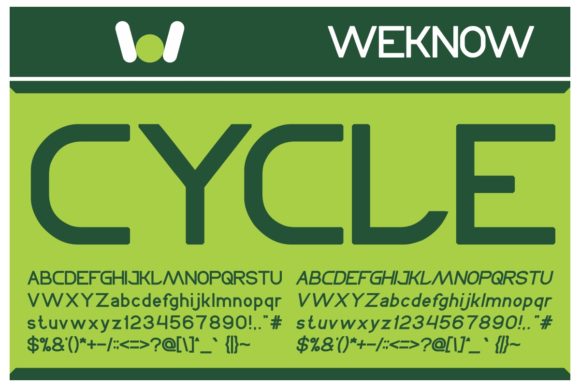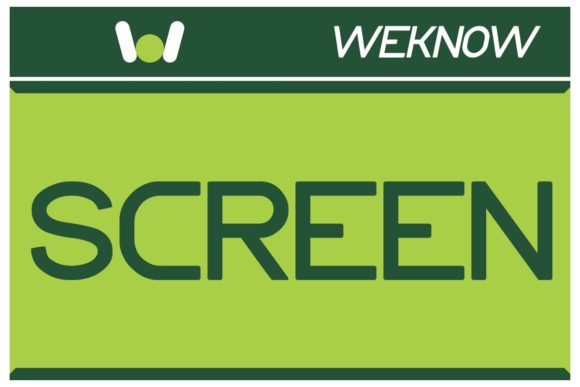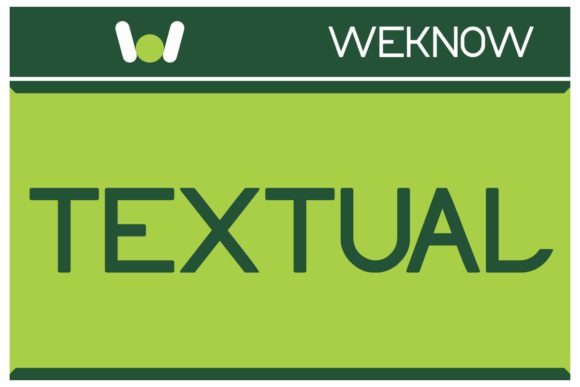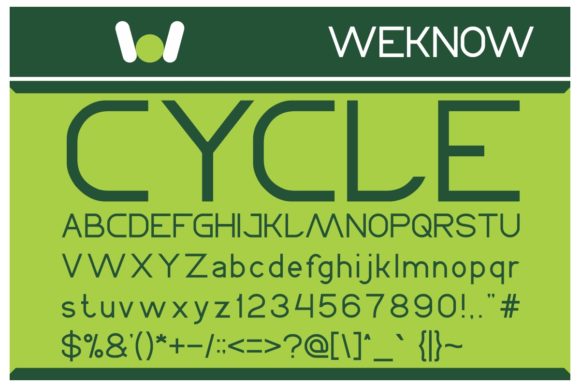
Cycle Font: The Ultimate Sans Serif for Modern Designs
In the world of typography, a good font can make all the difference in creating a lasting impression. For designers and crafters, finding the perfect typeface that balances simplicity and elegance can be a daunting task. However, if you’re looking for a font that embodies both qualities, look no further than Cycle Font. In this article, we’ll dive into the world of Cycle Font, exploring its features, benefits, and uses.
What is Cycle Font?
Cycle Font is a simple and casual sans serif font that boasts an undeniably clean feel. Its neat and beautiful arrangement of letters makes it an excellent choice for both formal and non-formal designs. The font’s minimalist approach to typography ensures that it remains versatile and adaptable, making it perfect for a wide range of applications.
Key Features of Cycle Font
• Clean and Simple Design: Cycle Font features a clean and simple design that ensures clarity and legibility.
• Sans Serif: As a sans serif font, Cycle Font lacks decorative flourishes, making it perfect for modern and minimalist designs.
• Neat Letter Arrangement: The font’s letters are arranged in a beautiful and harmonious way, creating a visually appealing effect.
• Versatile: Cycle Font is suitable for both formal and non-formal designs, making it an excellent addition to any designer’s toolkit.
Benefits of Using Cycle Font
So, why should you choose Cycle Font for your next design project? Here are just a few benefits of using this exceptional font:
• Enhances Readability: Cycle Font’s clean design and simple letterforms ensure that your text is easy to read, even at small font sizes.
• Boosts Visual Appeal: The font’s beautiful arrangement of letters adds a touch of elegance to any design, making it perfect for projects that require a professional look.
• Increases Versatility: Cycle Font’s adaptability makes it suitable for a wide range of applications, from branding and advertising to packaging and digital design.
• Easy to Pair: The font’s neutral design makes it easy to pair with other fonts, allowing you to create unique and harmonious typography combinations.
Uses of Cycle Font
Cycle Font is an incredibly versatile font that can be used in a variety of design projects, including:
• Branding and Logo Design: The font’s clean and simple design makes it perfect for creating professional logos and brand identities.
• Digital Design: Cycle Font is suitable for digital applications, such as website design, mobile apps, and social media graphics.
• Print Design: The font’s beautiful letter arrangement makes it perfect for print designs, such as brochures, flyers, and posters.
• Crafting and DIY Projects: Cycle Font can add a touch of elegance to crafting and DIY projects, such as handmade cards, invitations, and gift tags.
In conclusion, Cycle Font is an exceptional sans serif font that offers a perfect blend of simplicity and elegance. Its clean design, beautiful letter arrangement, and versatility make it an excellent choice for designers and crafters alike. Whether you’re working on a formal or non-formal design project, Cycle Font is sure to impress. So, why not give it a try and experience the benefits of using this amazing font for yourself?
Get Creative with Cycle Font
Ready to unleash your creativity with Cycle Font? Here are some tips to get you started:
• Experiment with Font Sizes: Try using Cycle Font at different font sizes to see how it looks in various contexts.
• Pair it with Other Fonts: Don’t be afraid to experiment with pairing Cycle Font with other fonts to create unique typography combinations.
• Use it in Different Colors: Try using Cycle Font in different colors to add visual interest to your design.